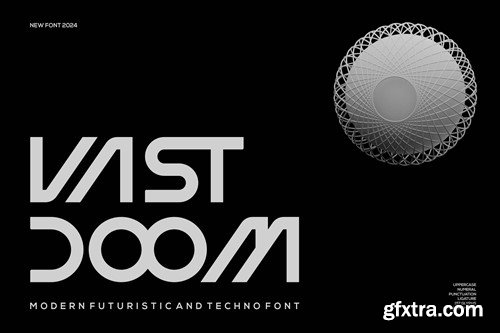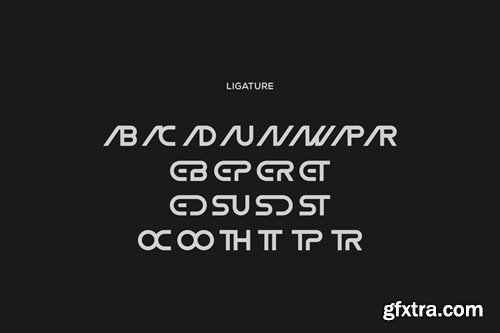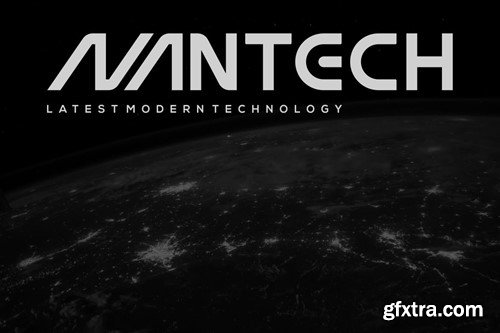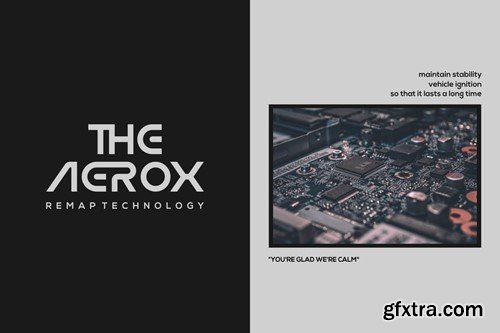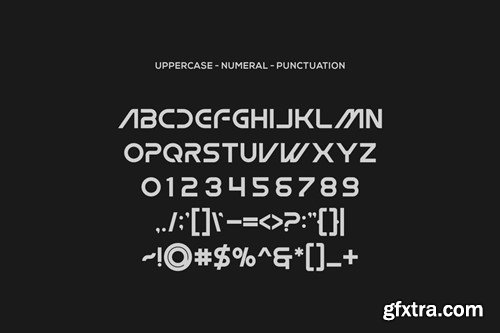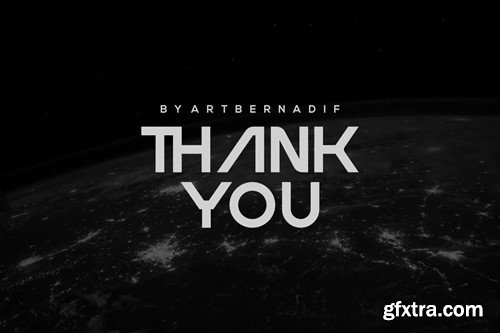
霸天 - 现代未来主义和科技字体D7TEU6F
Vast Doom - Modern Futuristic and Techno Font D7TEU6F
Vast Doom - Modern Futuristic and Techno Font
Introducing our new product Vast Doom Font Modern Futuristic and Techno Font
Vast Doom Font Modern Font is a bold and authentic display font. The font is suitable for any branding project like logo, t-shirt printing, esport, and many more. outstanding in a wide range of contexts.
• Vast Doom Uppercase
• Vast Doom Ligature